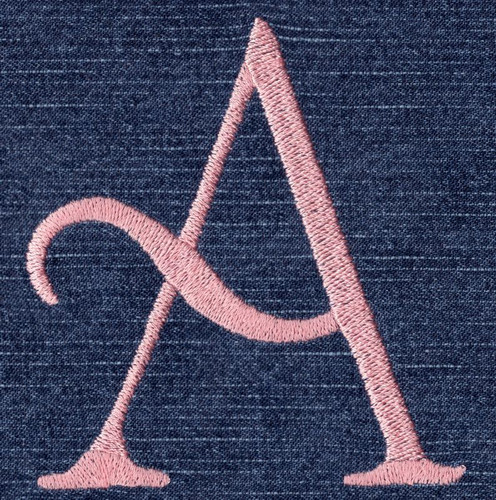
282 Garton Jumbo SatinFill Font
Garton Jumbo SatinFill Font comes in three sizes; 4", 5" and 6". This set is designed for embroidery machines with large hoops. Individually, some lowercase letters in the two smaller sizes will fit in 4x4 hoops and some uppercase letters in the 4" and 5" sets will fit in 5x7 hoops; but most characters in the 5" and 6" set exceed 5x7 hoop limitations. All sizes are stitched in SatinFill. Includes uppercase, lowercase, numbers and Thirteen punctuations.